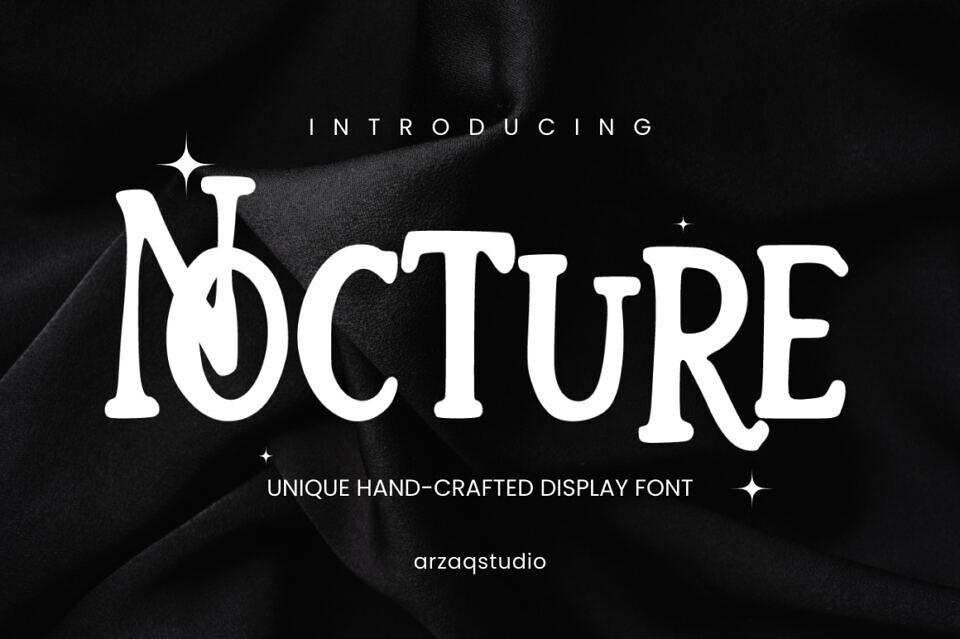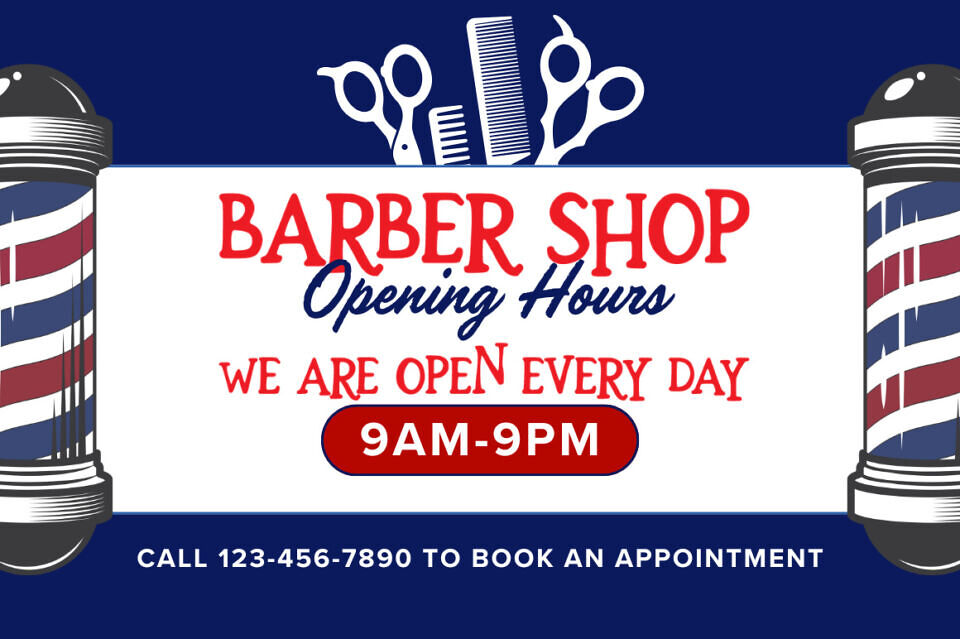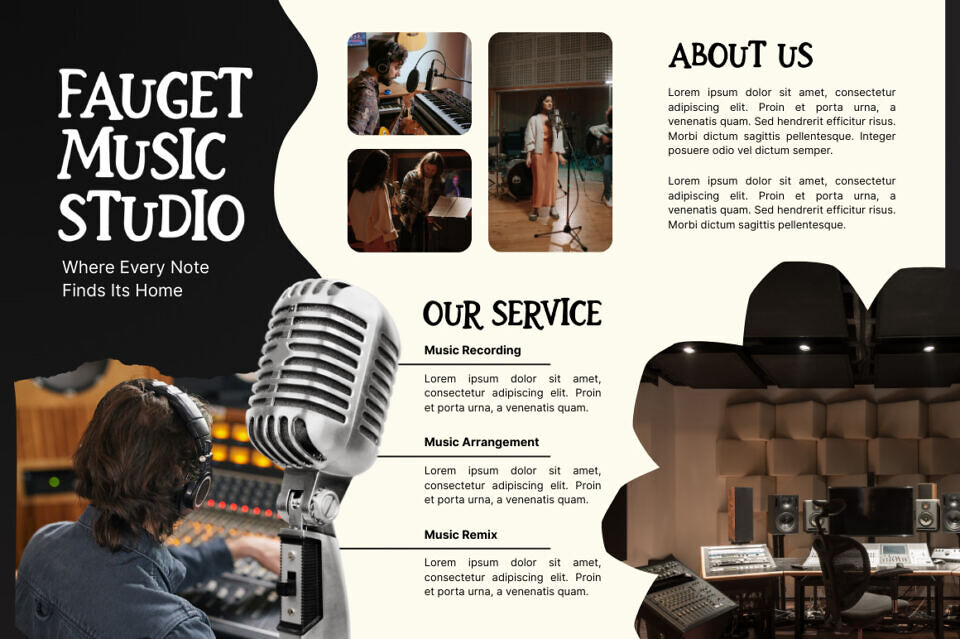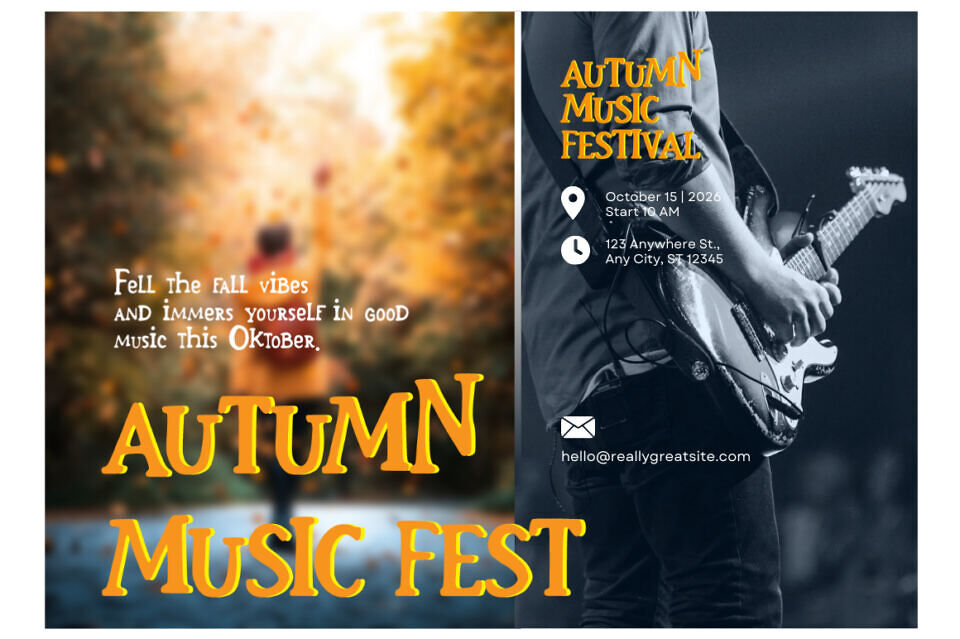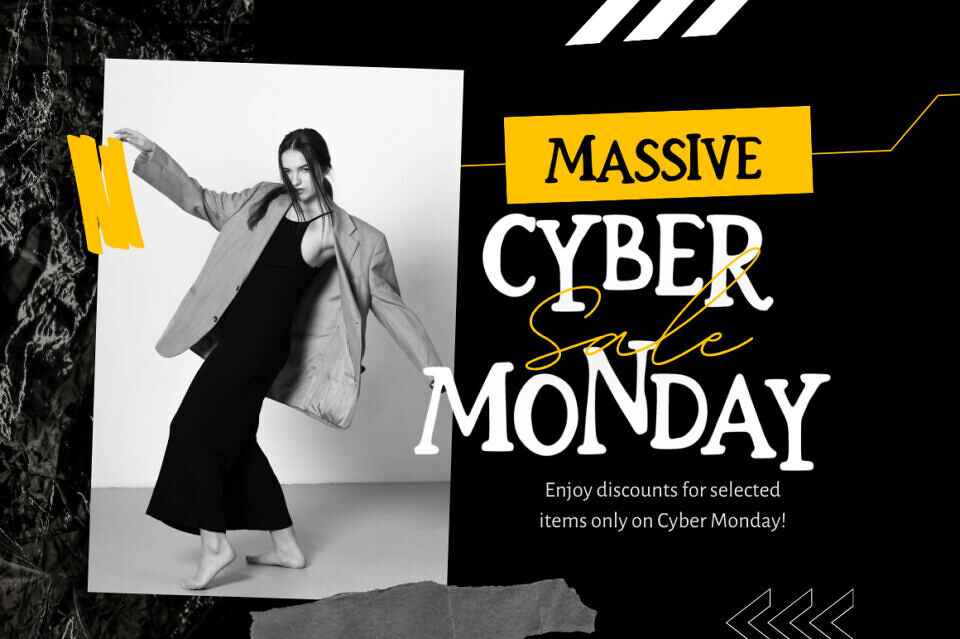
Nocture is a unique hand-crafted display font features a playful serif style with organic curves and slightly irregular shapes that give it a warm, whimsical personality. Designed to stand out, this font is perfect for quotes, book covers, posters, branding, packaging, invitations, and creative craft projects.
Its artistic letterforms combine a classic serif feel with a fun, modern twist, making it versatile for both professional and playful designs. The distinctive character shapes add charm and authenticity, helping your typography look natural, expressive, and eye-catching in both print and digital projects.